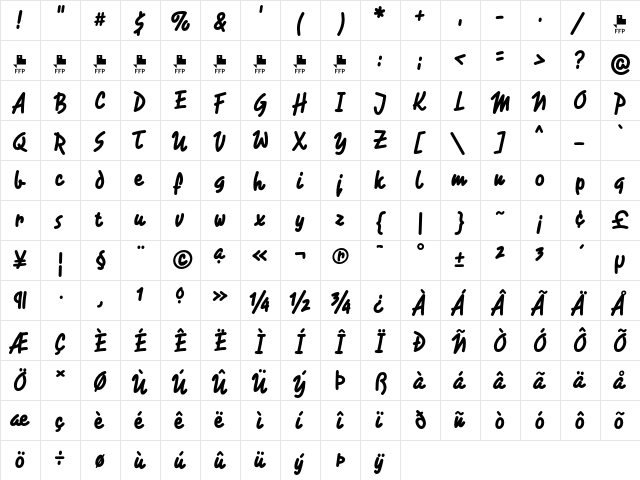
Rotulona Hand FFP
| Foundry | deFharo |
| Designer | deFharo |
Design Context for Rotulona Hand Typeface
Rotulona Hand brings a calligraphic fluidity to the page — its connecting strokes and expressive curves give it an unmistakably human quality.
Font Pairing: Combine Rotulona Hand with a simple geometric sans for maximum contrast — the tension between flowing curves and clean structure is a classic typographic pairing.
Pro Tip: Pair Rotulona Hand with a clean sans-serif for supporting text. The contrast between fluid script and geometric structure creates an elegant typographic hierarchy.